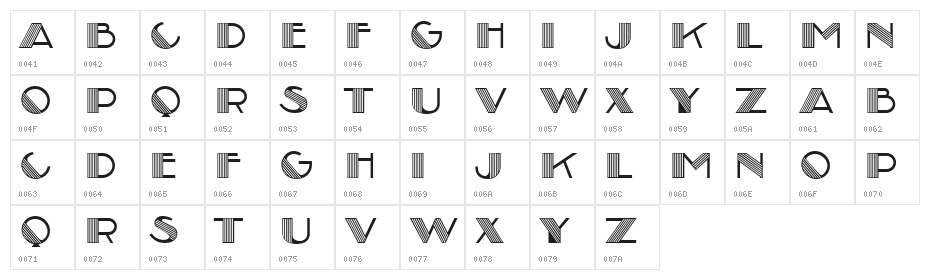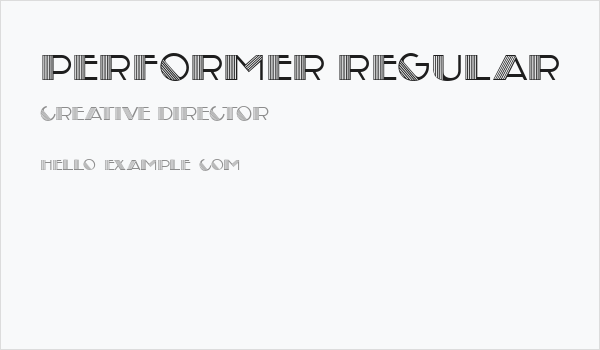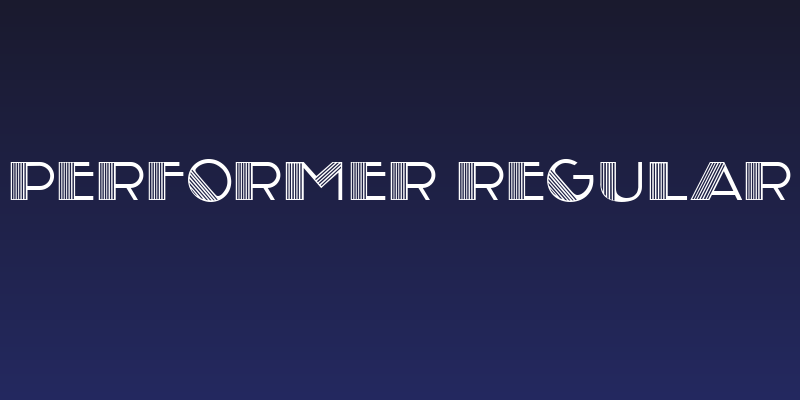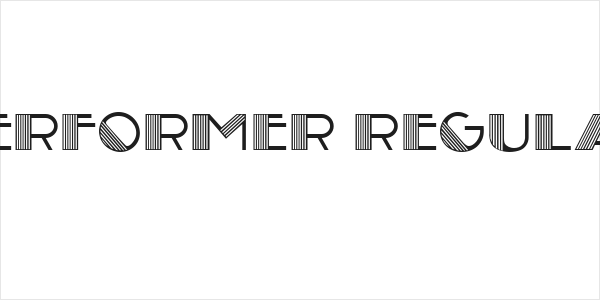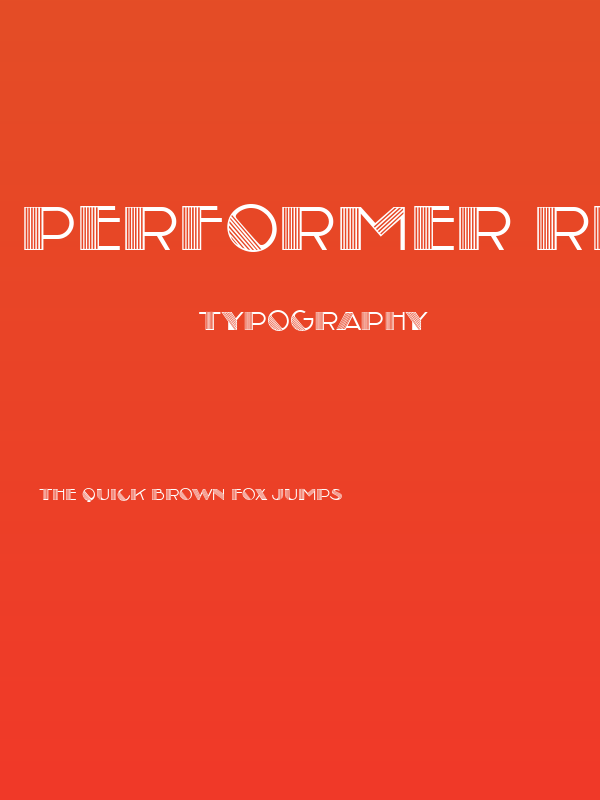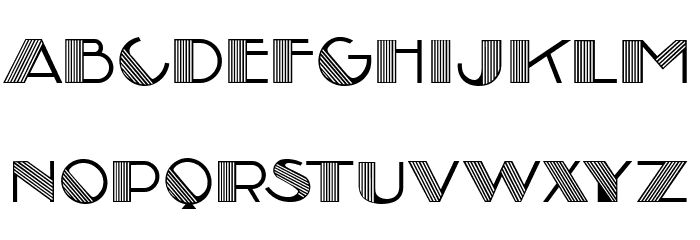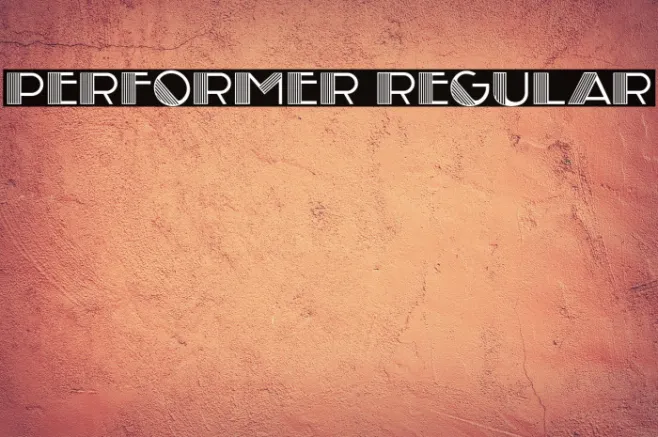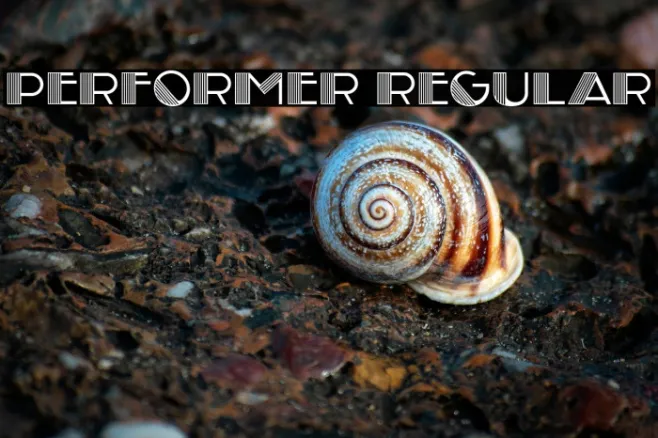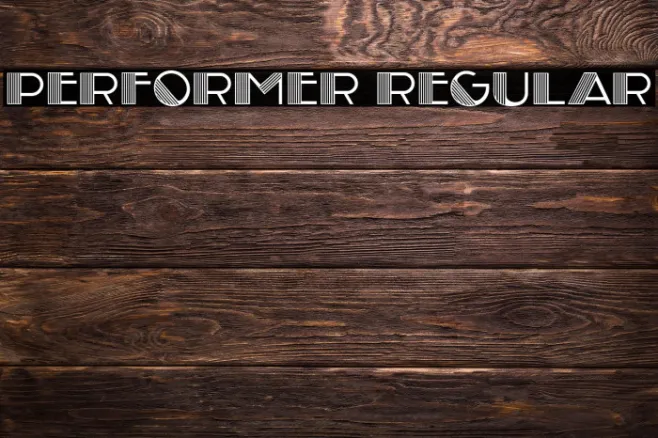
Performer Regular Font
Performer Regular Description
This font features a unique and artistic design with a strong emphasis on geometric patterns and lines. Each character is constructed with a series of parallel lines, creating a sense of depth and movement. The uppercase letters are particularly striking, with some characters incorporating curves and angles that add to the dynamic appearance. The overall look is modern and stylish, making it suitable for creative and bold design projects. The font's distinct style makes it stand out, ideal for capturing attention in headlines or logos. Its decorative nature suggests a focus on visual impact rather than readability in long text passages.
| Proposed Projects | Ideal for use in branding, logos, headlines, posters, and artistic projects where a bold statement is needed. |